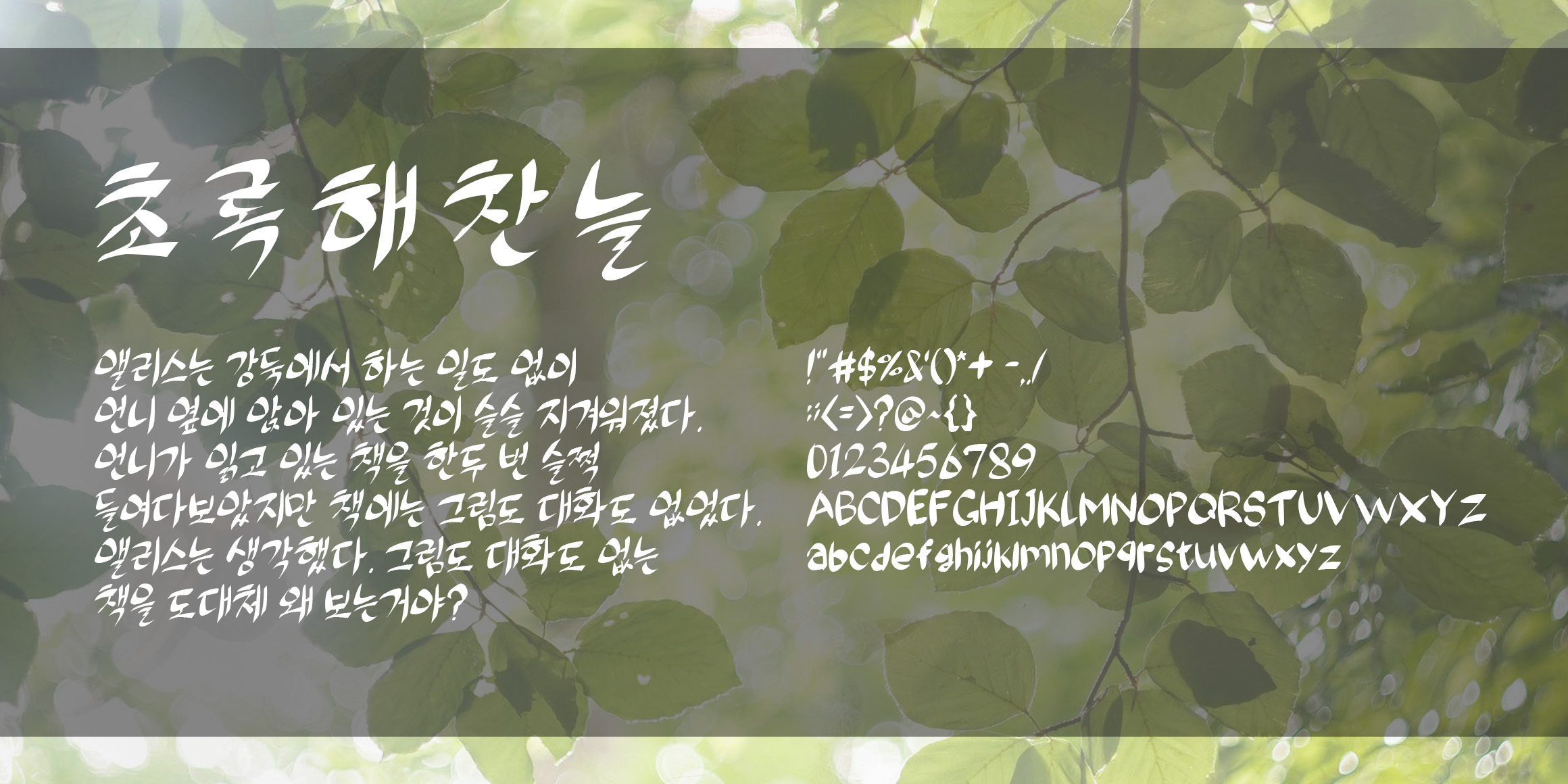
RK-Chorokhaechanneul
"Chorok Haechanneul-che" is a handwriting typeface created based on the motif of crescent-shaped leaf shadows that can be seen on the day of a solar eclipse.